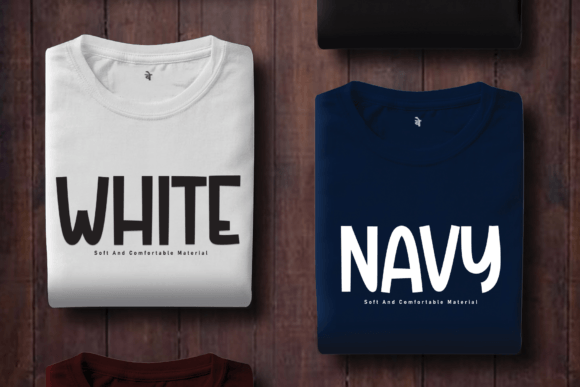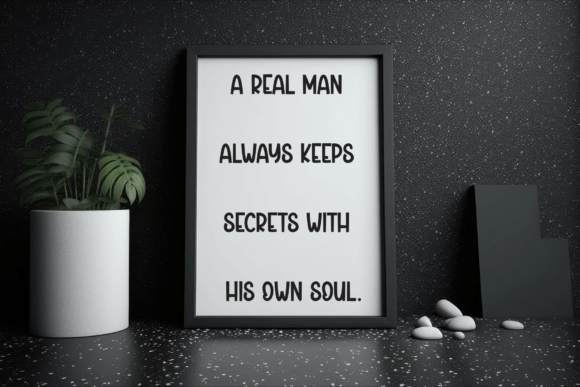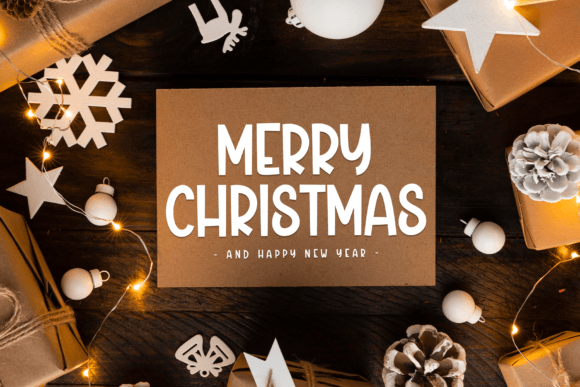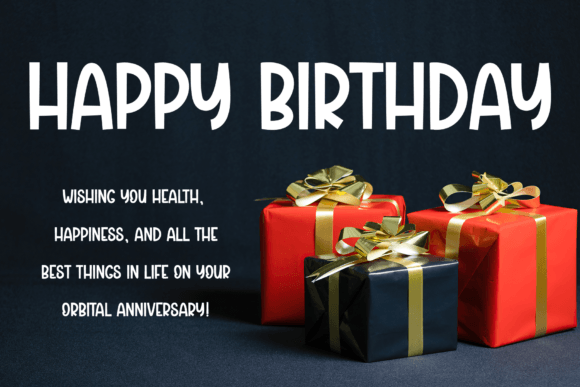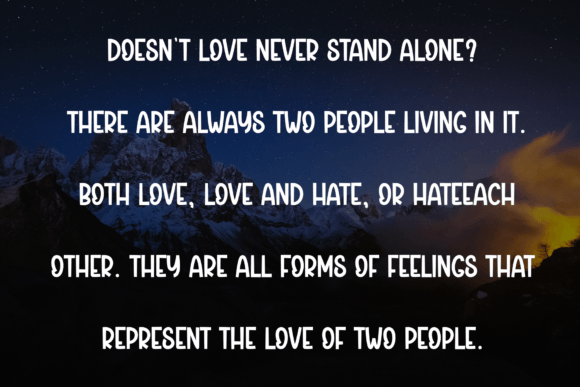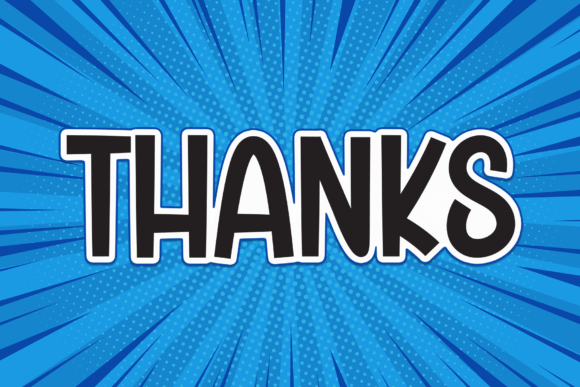
Introducing Game Over Font: The Sweet and Friendly Handwritten Font for Your Creative Projects
Are you a designer, crafter, or DIY enthusiast looking for a font that can add a touch of personality to your projects? Look no further than Game Over Font, a sweet and friendly handwritten font that’s perfect for a wide range of designs. With its natural and unique style, Game Over Font is incredibly versatile and can be used for everything from crafting and scrapbooking to branding and advertising.
The Story Behind Game Over Font
Game Over Font is a carefully crafted handwritten font that’s designed to bring a sense of fun and playfulness to your projects. Its creator had a vision of developing a font that would be both sweet and friendly, with a natural and unique style that would stand out from the crowd. And that’s exactly what they’ve achieved with Game Over Font.
What Makes Game Over Font So Special?
So, what sets Game Over Font apart from other fonts out there? Here are just a few things that make it so special:
- Handwritten with love: Game Over Font is a true handwritten font, crafted with love and care to give it a personal and unique touch.
- Natural and unique style: The font has a natural and unique style that’s perfect for adding a touch of personality to your projects.
- Highly versatile: Game Over Font is incredibly versatile and can be used for a wide range of designs, from crafting and scrapbooking to branding and advertising.
- Easy to read: Despite its playful and handwritten style, Game Over Font is easy to read and understand, making it perfect for use in body text.
How to Use Game Over Font in Your Projects
Game Over Font is incredibly easy to use and can be incorporated into your projects in a variety of ways. Here are just a few ideas to get you started:
- Crafting and scrapbooking: Use Game Over Font to add a personal touch to your scrapbook pages, cards, and other craft projects.
- Branding and advertising: Use Game Over Font to create eye-catching logos, advertisements, and marketing materials that stand out from the crowd.
- Digital design: Use Game Over Font in your digital designs, such as social media graphics, blog posts, and website headers.
- DIY projects: Use Game Over Font to add a personal touch to your DIY projects, such as signs, banners, and other home decor items.
Tips and Tricks for Getting the Most Out of Game Over Font
Here are just a few tips and tricks for getting the most out of Game Over Font:
- Experiment with different colors: Game Over Font looks great in a variety of colors, so don’t be afraid to experiment and find the perfect hue for your project.
- Mix and match with other fonts: Game Over Font pairs well with a variety of other fonts, so feel free to mix and match to create a unique look.
- Use it for headlines and body text: Game Over Font is easy to read and understand, making it perfect for use in both headlines and body text.